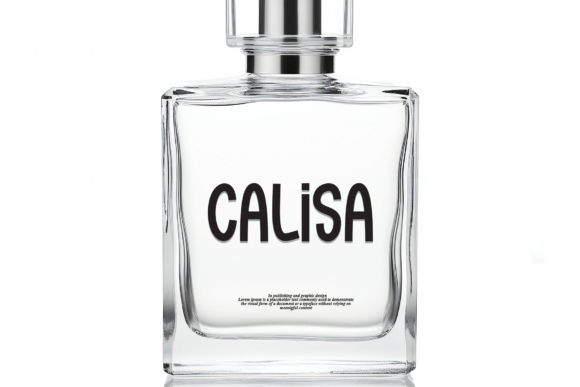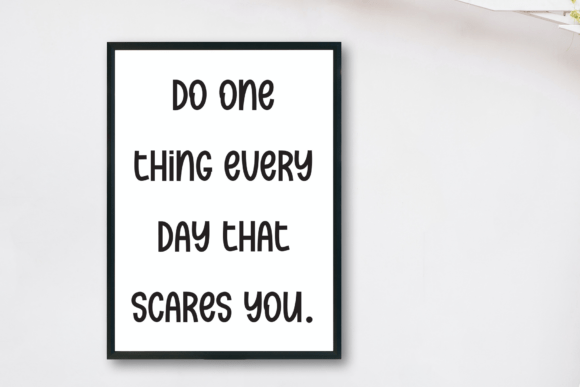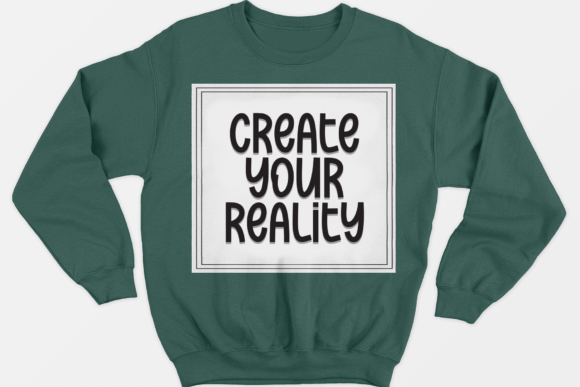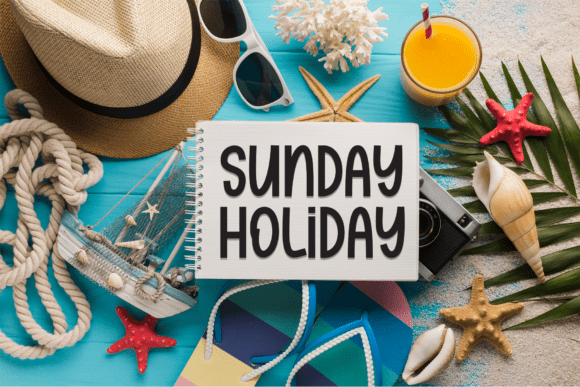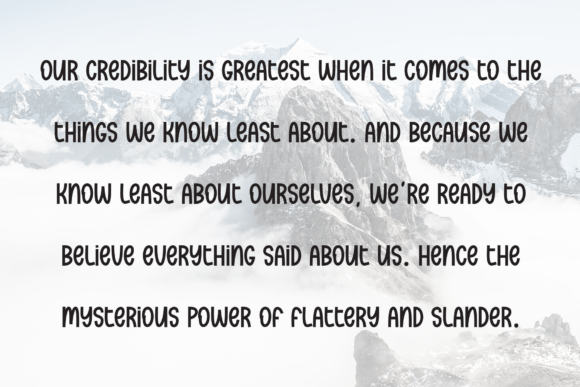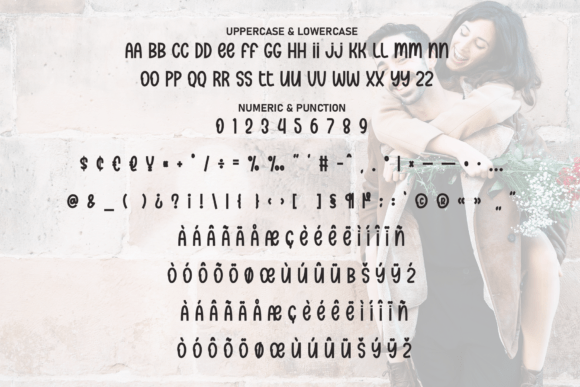
Introducing Happy Married Font: The Perfect Blend of Simplicity and Friendliness
In the world of typography, fonts play a crucial role in conveying the tone and personality of a brand or design. For designers and crafters, finding the right font can make all the difference in creating a lasting impression. This is where Happy Married Font comes in – a casual and neat display font that combines simplicity with a friendly, approachable vibe.
Design Characteristics of Happy Married Font
Happy Married Font boasts clean lines, balanced letterforms, and subtle rounded edges, making it a perfect representation of modern handwritten typography with a polished finish. The font’s design characteristics include:
- Clean Lines: Happy Married Font features clean and precise lines that give it a crisp and modern look.
- Balanced Letterforms: The font’s letterforms are carefully crafted to ensure balance and harmony, making it easy to read and understand.
- Subtle Rounded Edges: The subtle rounded edges add a touch of friendliness and approachability to the font, making it perfect for designs that require a warm and inviting tone.
Uses of Happy Married Font
Happy Married Font is an incredibly versatile font that can be used in a variety of design applications, including:
- Branding: The font’s unique blend of simplicity and friendliness makes it perfect for branding projects that require a modern and approachable look.
- Headlines: Happy Married Font is ideal for headlines and titles, where its clean lines and balanced letterforms can make a lasting impression.
- Packaging: The font’s warm and inviting tone makes it perfect for packaging designs that require a friendly and approachable look.
- Digital Content: Happy Married Font can be used in digital content, such as blog posts, social media, and website designs, to add a touch of warmth and personality.
Benefits of Using Happy Married Font
Using Happy Married Font in your designs can have several benefits, including:
- Clarity: The font’s clean lines and balanced letterforms ensure clarity and readability, making it easy for your audience to understand your message.
- Charm: Happy Married Font adds a touch of warmth and personality to your designs, making them more engaging and memorable.
- Versatility: The font’s versatility makes it suitable for a wide range of design applications, from branding and headlines to packaging and digital content.
Why Designers and Crafters Love Happy Married Font
Designers and crafters love Happy Married Font for its unique blend of simplicity and friendliness. The font’s modern and approachable look makes it perfect for designs that require a warm and inviting tone. Additionally, the font’s versatility and clarity make it easy to use in a variety of design applications.
Tips for Using Happy Married Font
Here are some tips for using Happy Married Font in your designs:
- Use it for headlines and titles: Happy Married Font is perfect for headlines and titles, where its clean lines and balanced letterforms can make a lasting impression.
- Pair it with other fonts: The font’s versatility makes it easy to pair with other fonts, creating a unique and visually appealing design.
- Experiment with different sizes: Happy Married Font can be used in a variety of sizes, from large headlines to smaller body text.
Happy Married Font is a unique and versatile font that combines simplicity with a friendly, approachable vibe. Its clean lines, balanced letterforms, and subtle rounded edges make it perfect for designs that require a warm and inviting tone. With its clarity, charm, and versatility, Happy Married Font is an excellent choice for designers and crafters looking to add a touch of personality to their designs.